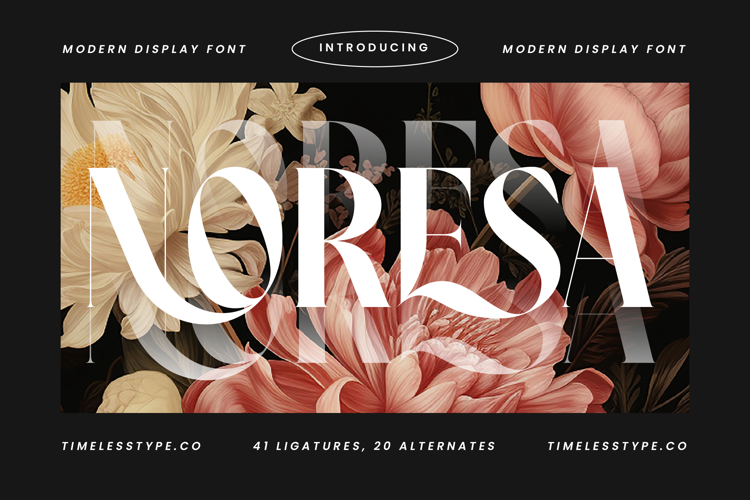
Noresa - Modern Display Font
The Noresa Typeface is a modern serif display font with an elegant, artistic, and sophisticated style. Featuring 41 ligatures and 20 stylistic alternates, this font provides exceptional flexibility to create typography that is unique, expressive, and aesthetically refined. Its slender letterforms with sharp contrasts and decorative accents blend contemporary elegance with classic charm, making it perfect for designs that highlight beauty, luxury, and artistic character.
This typeface is highly effective for editorial design, such as fashion magazines, art features, book covers, and exclusive layouts. The ligatures and alternates offer a wide range of typographic variations, resulting in layouts that feel rich, elegant, and expressive.
In branding and packaging, Noresa is an ideal choice for fashion, perfumes, cosmetics, wines, and other premium products. Its refined aesthetic lends a timeless and iconic presence to any brand identity.
For entertainment and promotional design, this font works beautifully on movie posters, music album covers, art festival branding, and cultural event campaigns. Its artistic character strengthens visual storytelling with a dramatic and stylish touch.
In the world of digital design, Noresa performs at its best in social media content, website branding, digital ads, and motion graphics. With multilingual support, it adapts seamlessly to global projects while ensuring consistent visual quality.
In short, Noresa Typeface is a modern serif display font designed to deliver elegance, artistic aesthetics, and creative flexibility. Perfect for editorial, branding, packaging, entertainment, advertising, and digital campaigns, this font elevates typography into a stylish, iconic, and luxurious visual element.